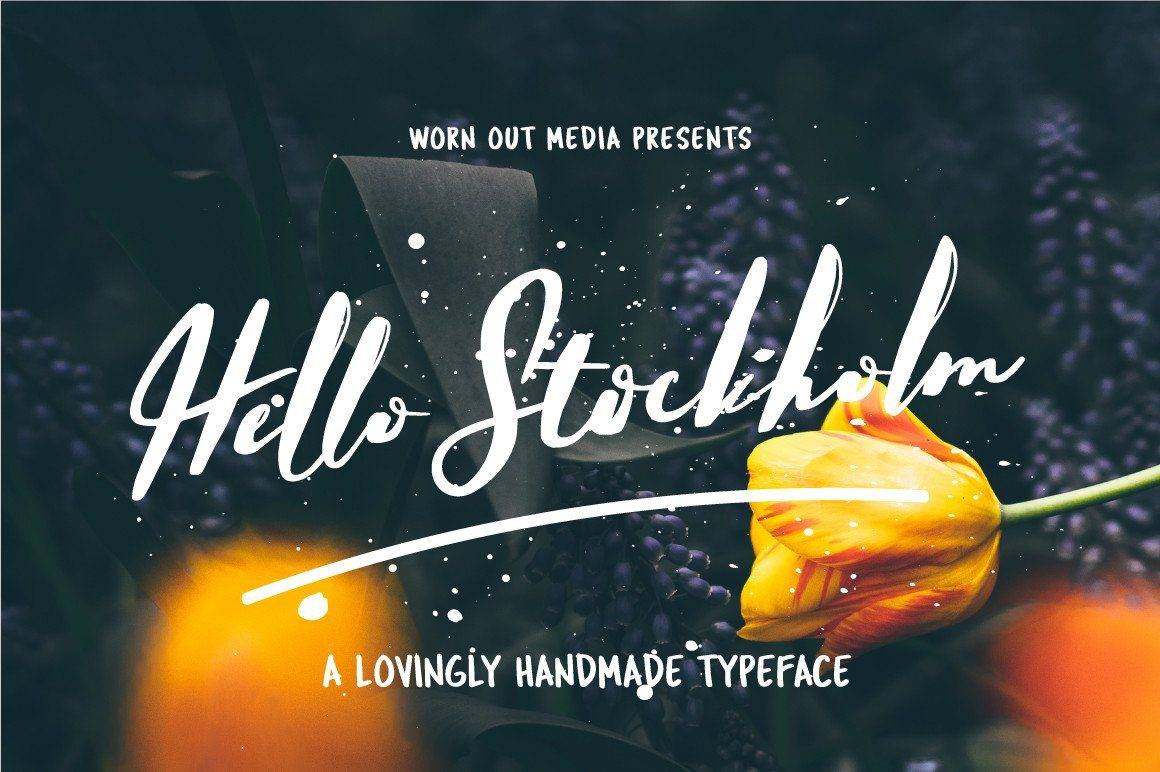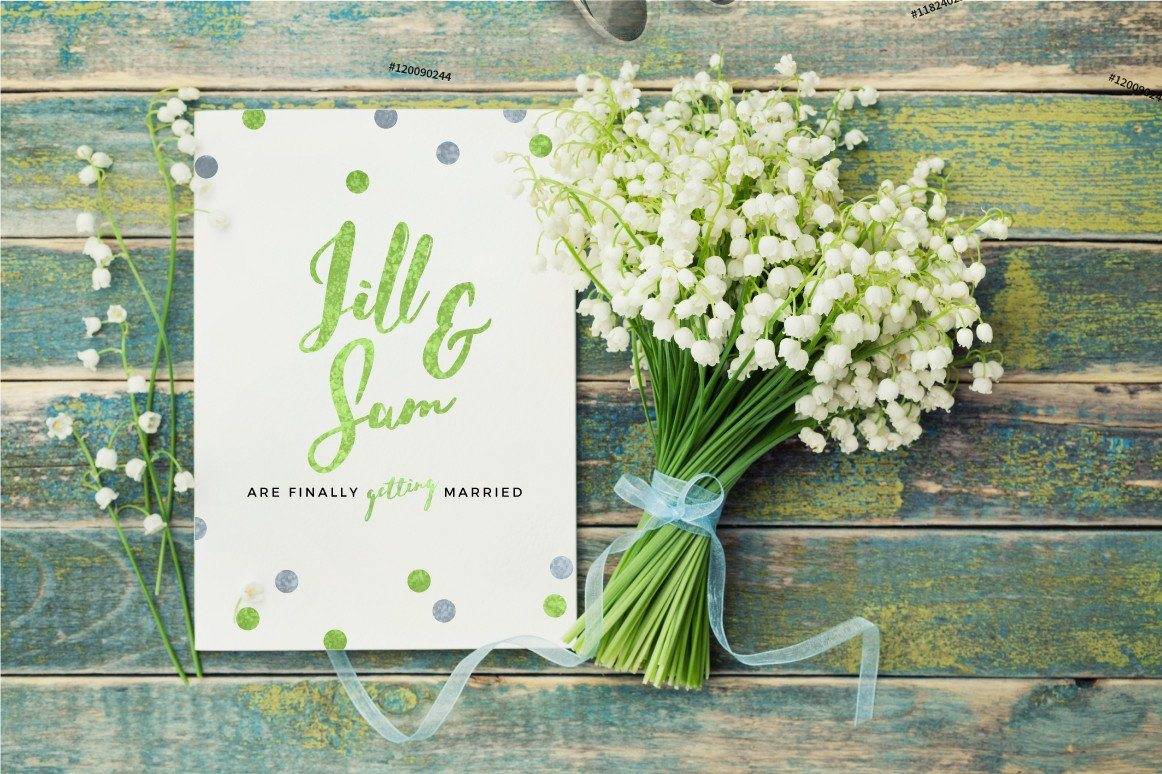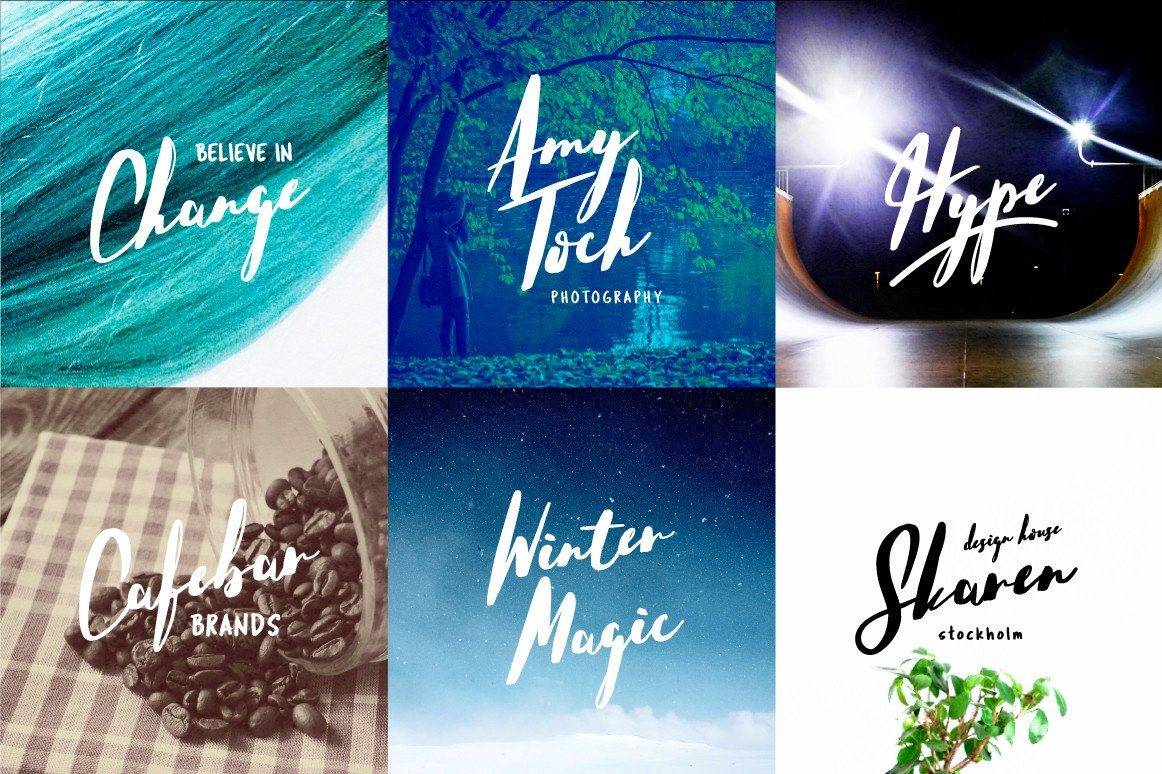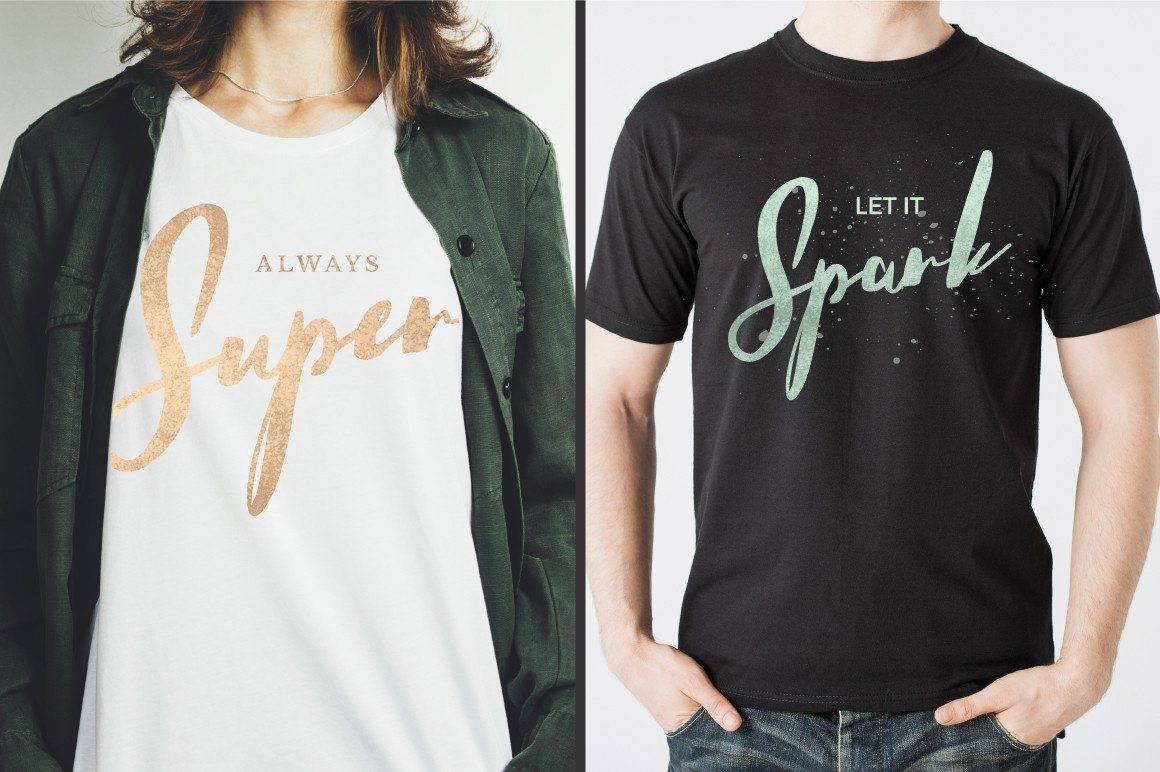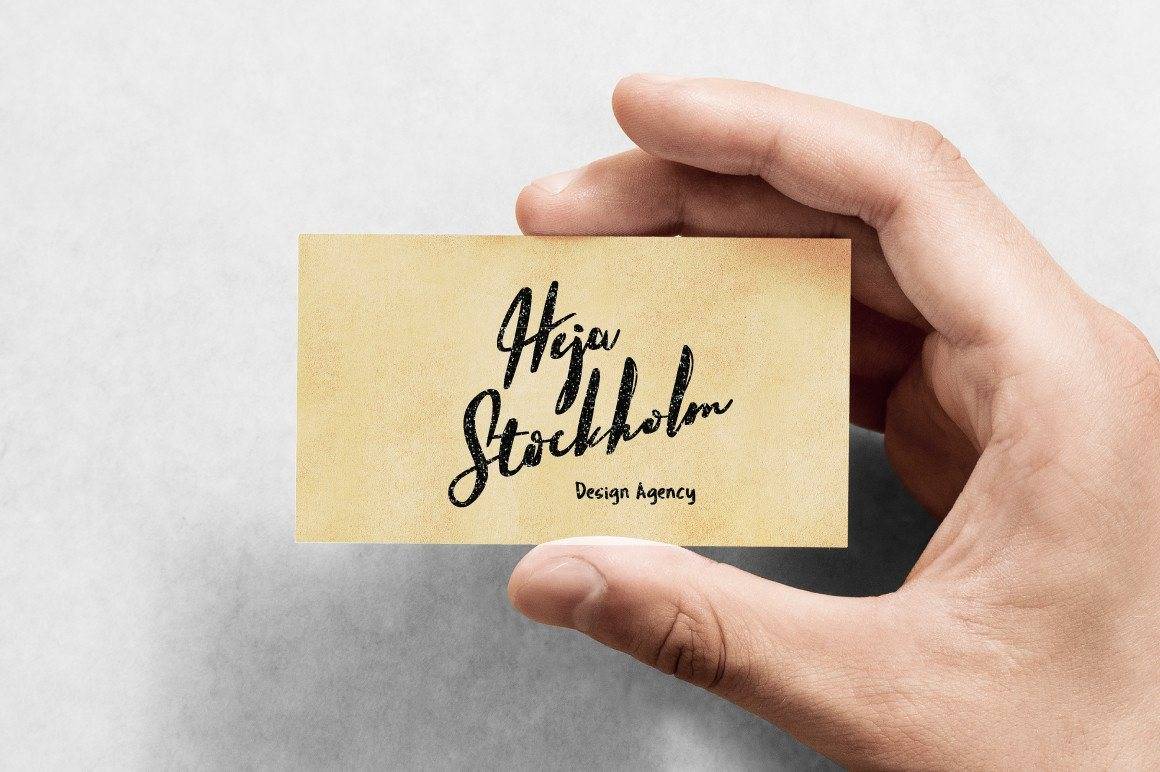
Hello Stockholm is a bold, expressive script font with a hand-painted feel, featuring energetic, brush-like strokes and a lively, casual style. Its tall, narrow letterforms and strong contrast between thick and thin lines make it ideal for creating dynamic and stylish headlines or branding that conveys creativity and personality. This font works especially well for fashion, lifestyle, and artistic projects seeking an informal yet impactful look.
Hello Stockholm